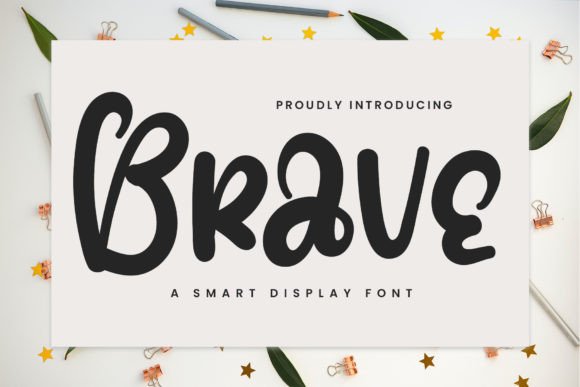
Behold the enchanting Brave Font—a captivating dance of letters that will ignite your creativity and leave an enduring mark on your designs. Immerse yourself in its delicate strokes, elegant curves, and graceful flow that harmoniously blend to create a visual masterpiece.
As a display font, Brave possesses a versatile charm that effortlessly complements an array of projects. Picture your words dancing across the page, each letter a unique work of art that captivates the eye and draws attention. From captivating logos and social media designs to eye-catching posters and invitations, Brave Font adds a touch of refinement and sophistication to every creation.
Embrace the allure of Brave Font and let your imagination soar. Experience the joy of crafting stunning school projects that radiate elegance and leave a lasting impression on teachers and classmates alike. With its well-balanced characters and expansive design possibilities, Brave Font empowers you to express your ideas with clarity and impact.
Dare to be distinctive and let Brave Font elevate your designs to new heights. Its enchanting beauty will transform your words into captivating works of art, captivating your audience and leaving them spellbound. Discover the transformative power of Brave Font today and unlock your creative potential!